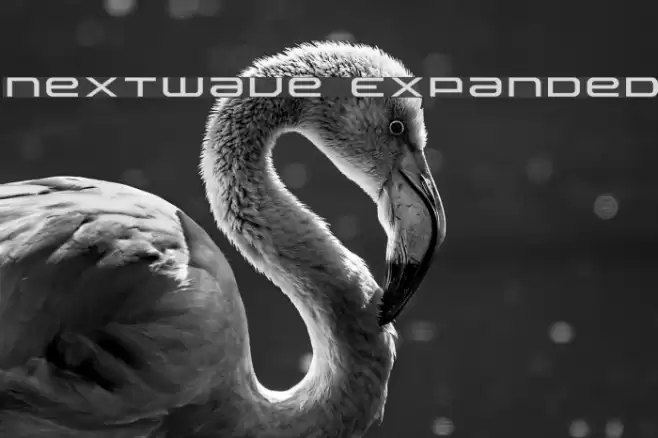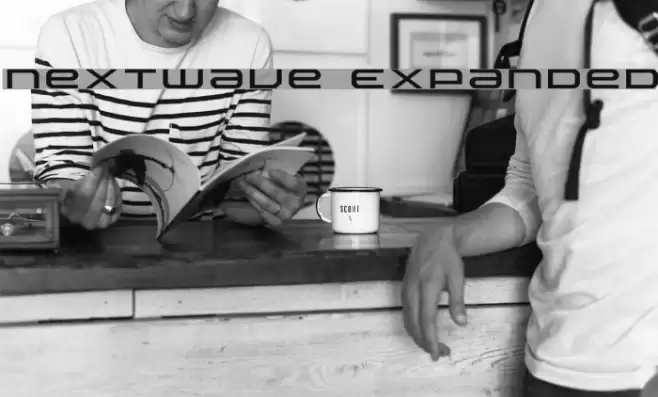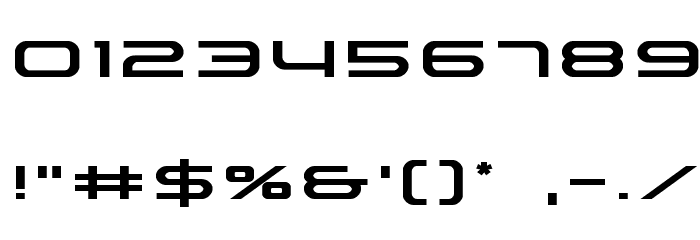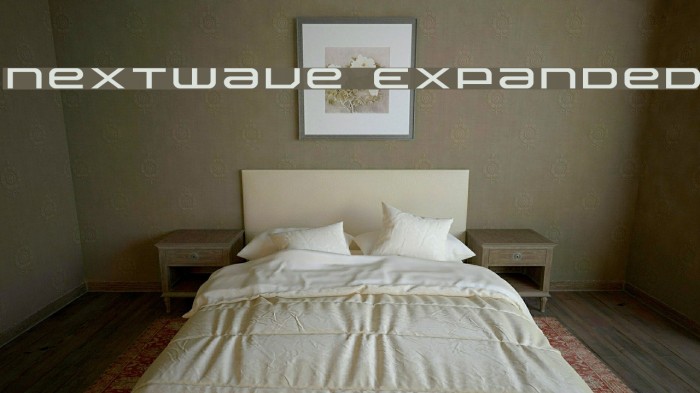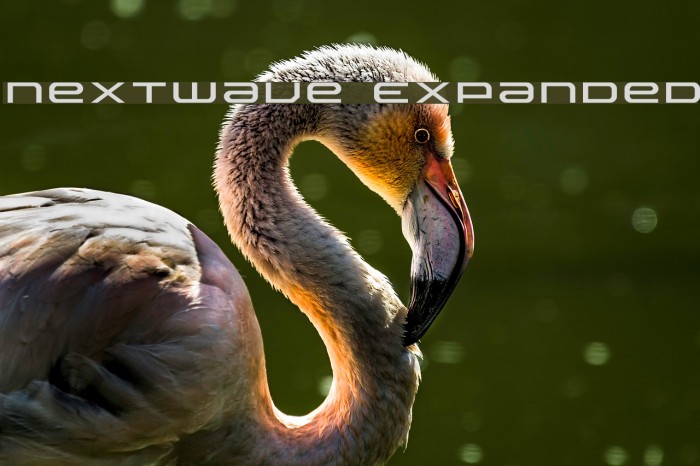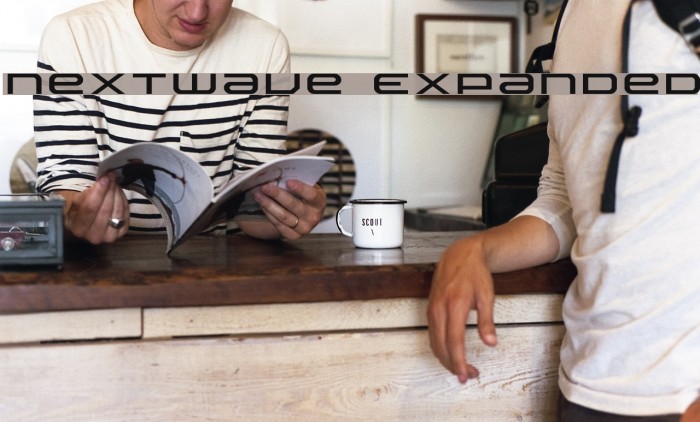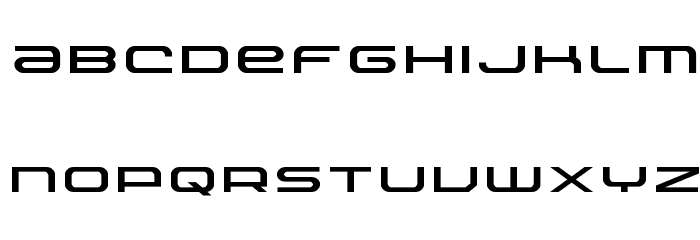
Nextwave Expanded Font
Nextwave Expanded Description
This font features a futuristic and geometric design, characterized by its clean lines and modern aesthetic. The characters are uniformly structured with a consistent stroke width, giving it a sleek and contemporary appearance. Its expanded width enhances readability and adds a distinctive flair, making it suitable for digital and print media. The font includes a full set of uppercase and lowercase letters, numbers, and a variety of special characters, ensuring versatility in usage. Its design is ideal for projects that require a modern and tech-savvy look.
A futuristic and geometric font with clean lines and expanded width from Uncategorized fonts.
- Proposed Projects: Ideal for technology branding, digital interfaces, modern advertising, and sci-fi themed projects.
- Use Case: Headlines, Logos, Digital interfaces